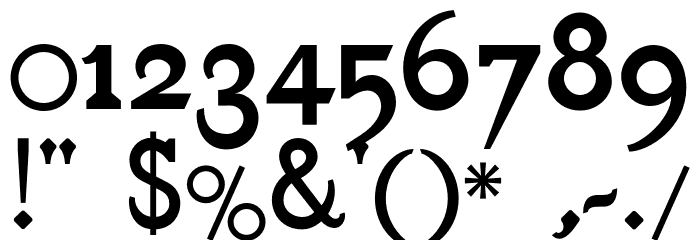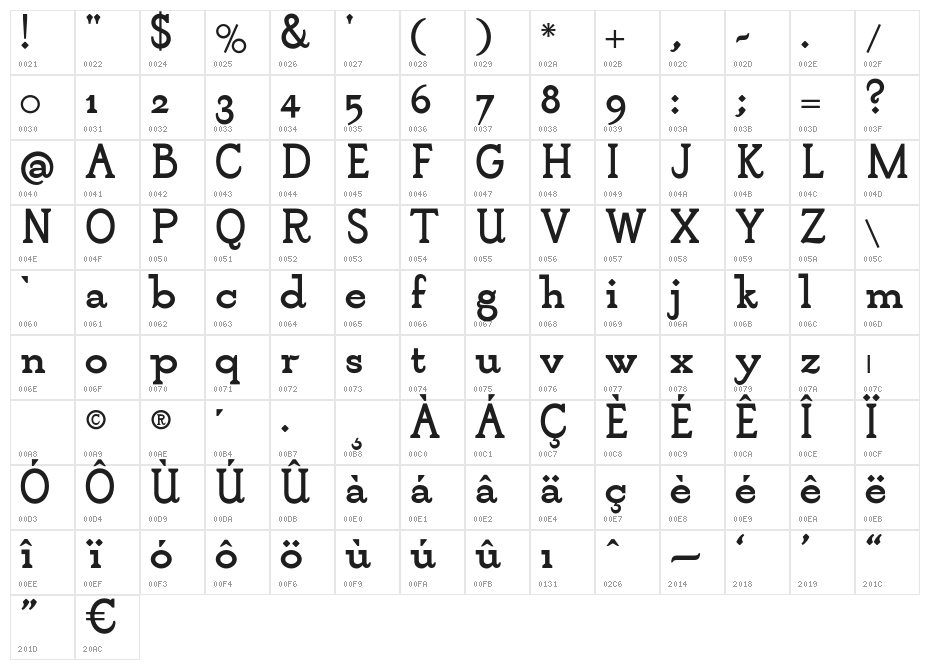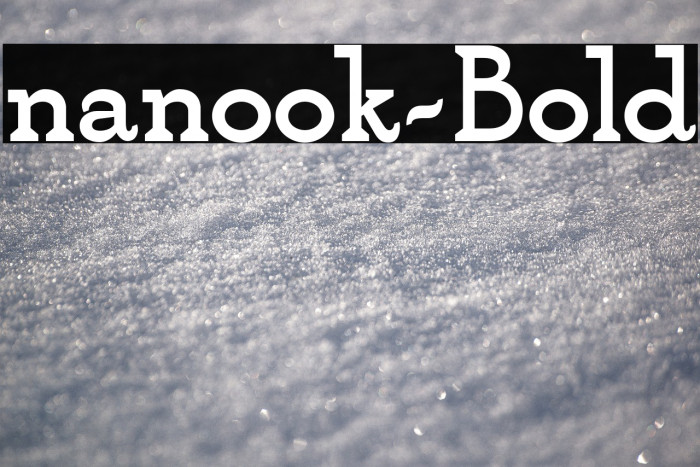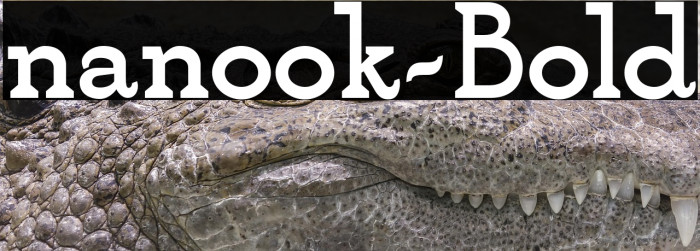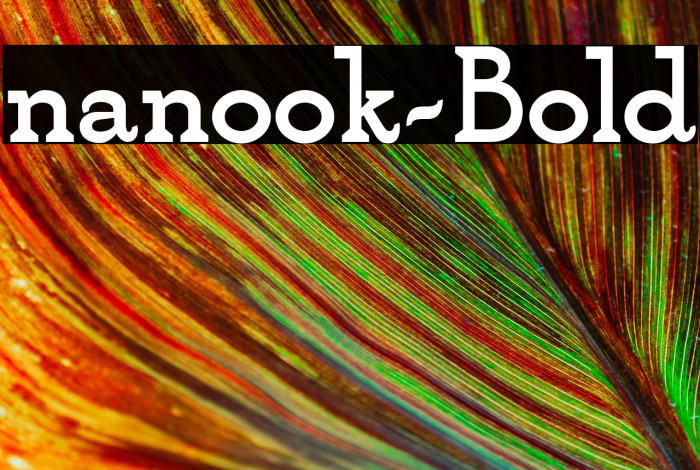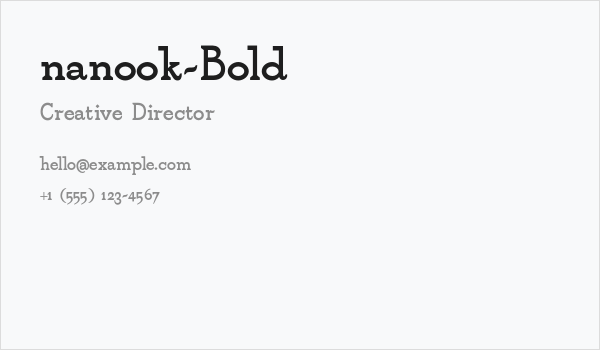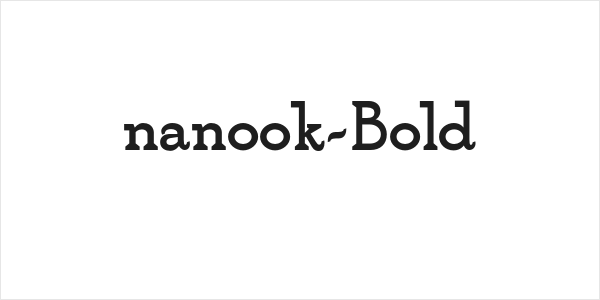
nanook-Bold Font
nanook-Bold Description
This font features a bold and robust design with strong, thick strokes that convey a sense of confidence and authority. The characters are well-defined with a slight curvature that adds a touch of elegance to the overall appearance. The uppercase letters are particularly striking, with a commanding presence that makes them ideal for headlines and titles. The lowercase letters maintain a consistent style, ensuring readability and cohesion across different text sizes. The numerals are clear and distinct, making them suitable for both formal and informal contexts. Special characters are included, offering versatility for various design needs.
| Proposed Projects | Ideal for branding, editorial design, posters, and any project requiring a bold, authoritative typeface. |